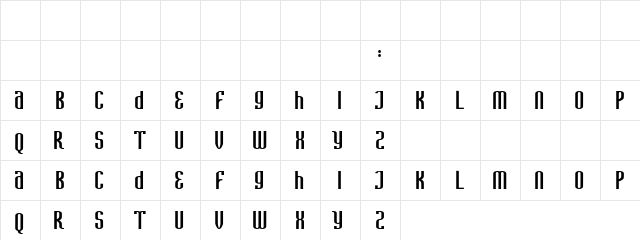
New Parishkar Regular
Design Context for New Parishkar Typeface
New Parishkar offers clean, dependable letterforms without strong stylistic allegiance, making it a practical choice for designers who need flexibility.